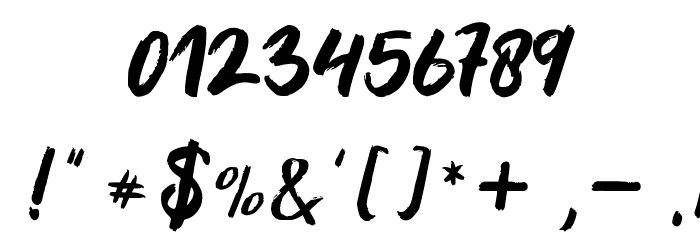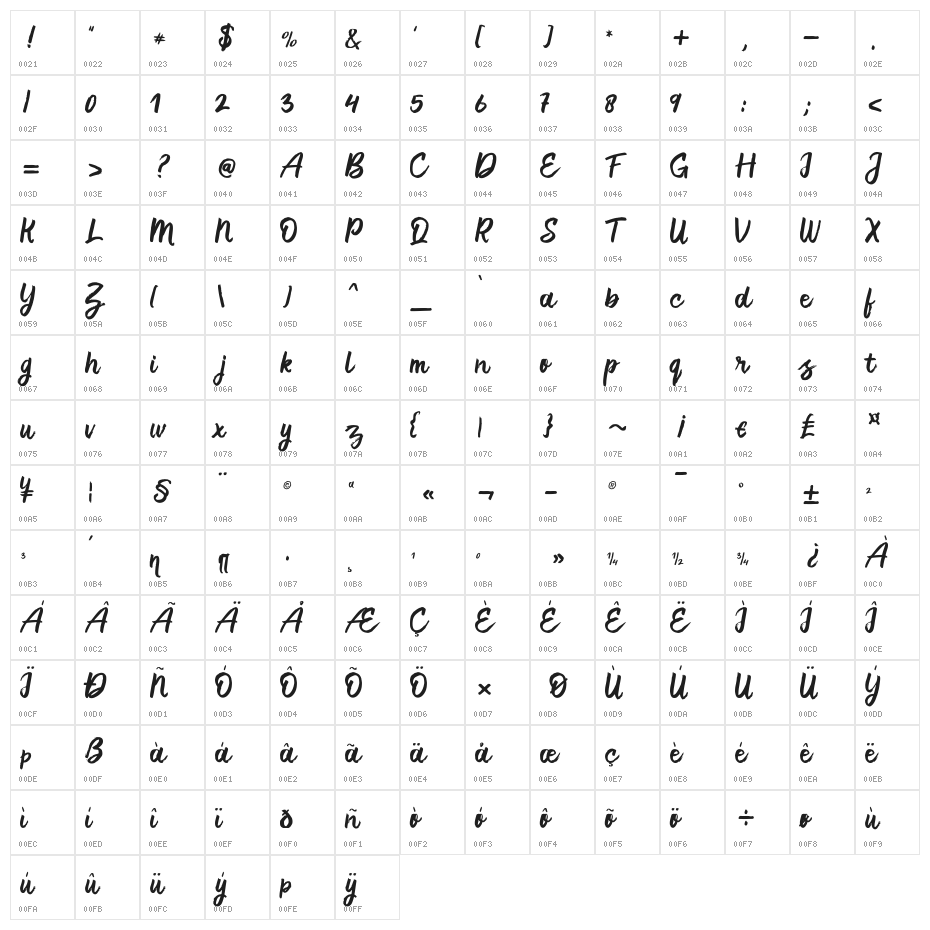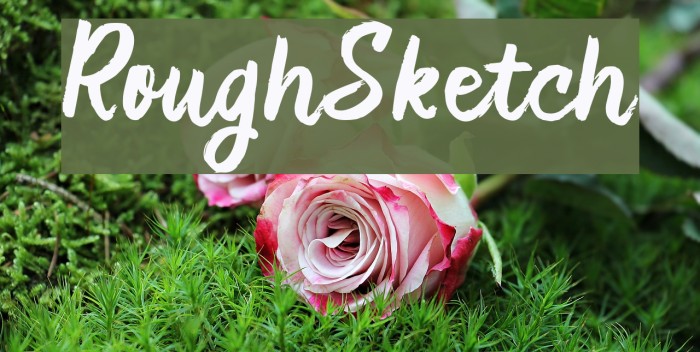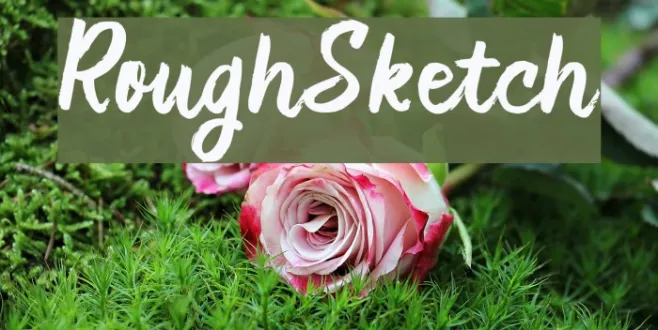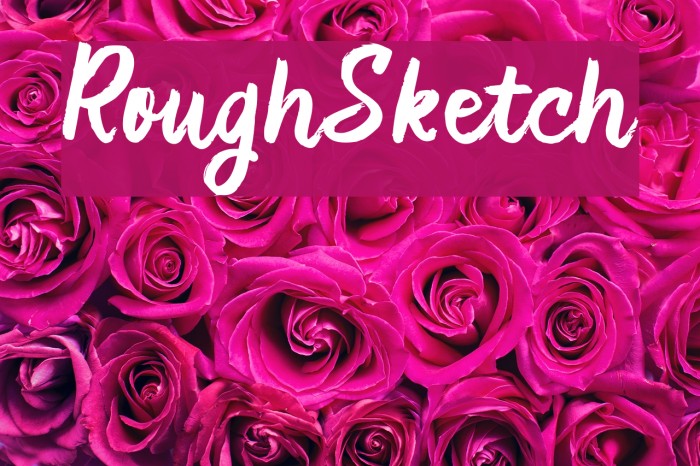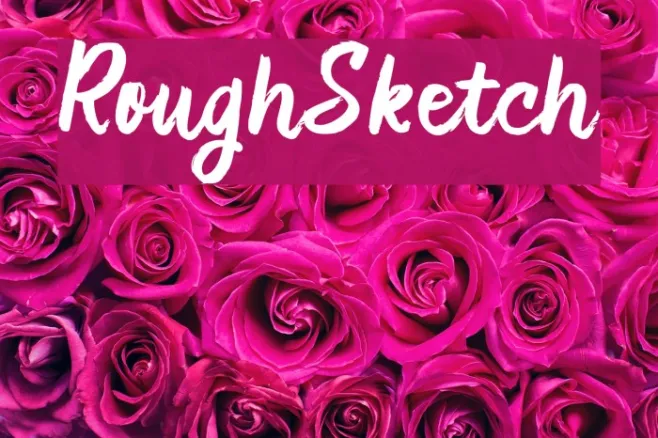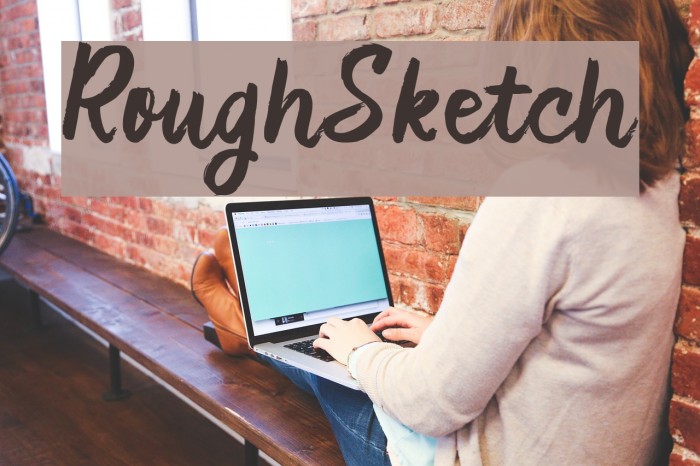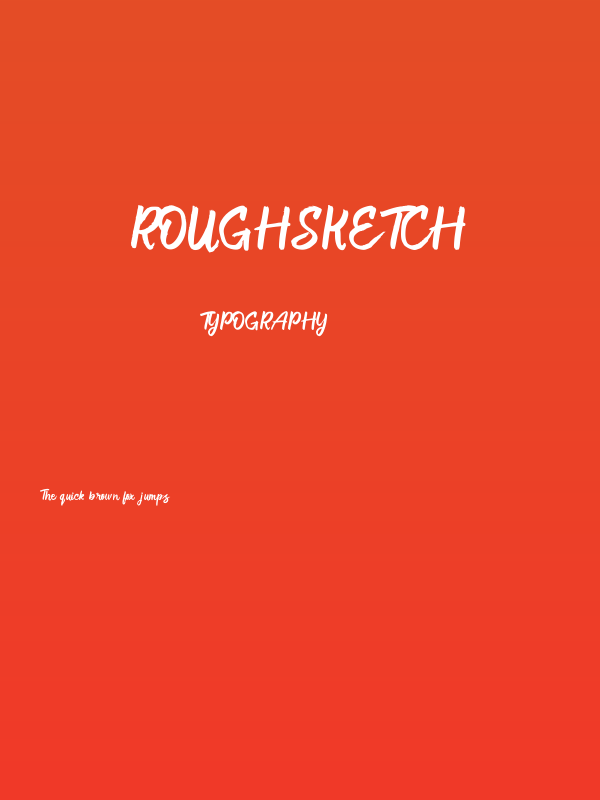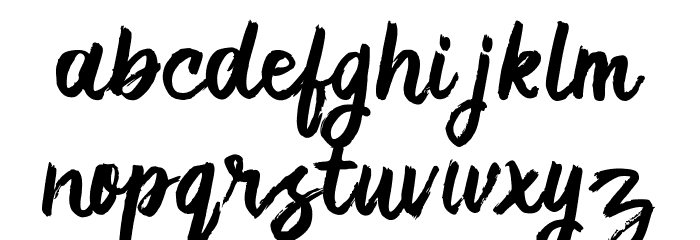
RoughSketch Font
RoughSketch Description
This font exudes a bold and expressive style, characterized by its brush-like strokes and dynamic flow. The uppercase letters are striking, with a slight slant that adds a sense of movement and energy. The lowercase letters maintain a cohesive look, complementing the uppercase with their rounded and fluid forms. Numbers are consistent with the overall style, featuring the same brush-like quality. Special characters are creatively designed, fitting seamlessly into the font's aesthetic. The font's unique style makes it ideal for projects that require a personal touch or a sense of creativity.
| Proposed Projects | Ideal for branding, posters, invitations, and artistic projects that require a personal and creative touch. |